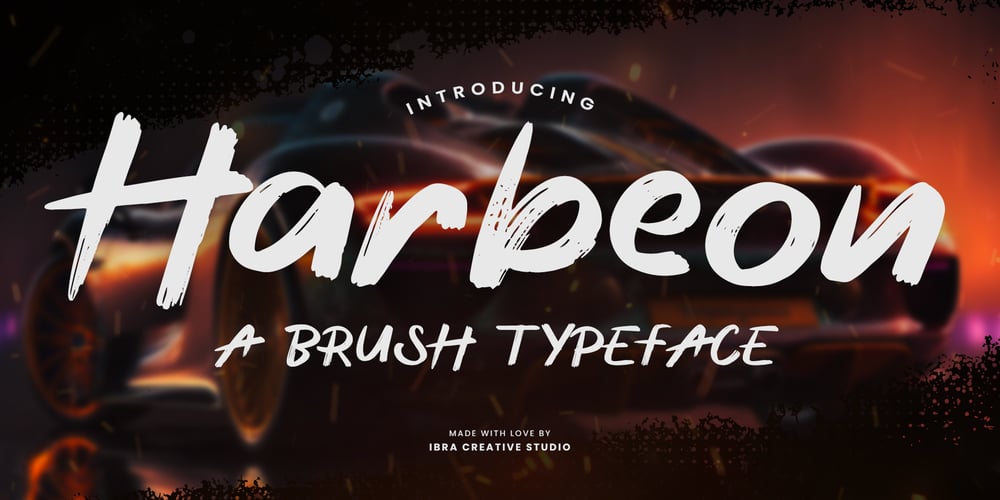
Harbeon
Harbeon font
Harbeon Font Family was designed by Roisatul Azizah and published by IbraCreative. Harbeon contains 1 styles and family package options. Harbeon – A Brush TypefaceHarbeon, a brush typeface, embodies the essence of expressive and dynamic design with its bold and textured strokes. Crafted with meticulous attention to detail, each character in Harbeon reflects the authenticity of hand-painted lettering, infusing a sense of artistic flair into any project. The brush strokes evoke a lively and energetic feel, making it an ideal choice for projects that demand a touch of spontaneity and creativity. Whether used for branding, headlines, or artistic endeavors, Harbeon’s versatile and captivating design lends itself to a wide range of applications, inviting designers to explore the vibrant realm where the precision of type meets the free-spirited essence of brushwork.Harbeon is perfect for branding projects, logo, wedding designs, social media posts, advertisements, product packaging, product designs, label, photography, watermark, invitation, stationery, game, fashion and any projects.Fonts include multilingual support for; Afrikaans, Albanian, Czech, Danish, Dutch, English, Estonian, Finnish, French, German, Hungarian, Italian, Latvian, Lithuanian, Norwegian, Polish, Portuguese, Slovak, Slovenian, Spanish, Swedish.